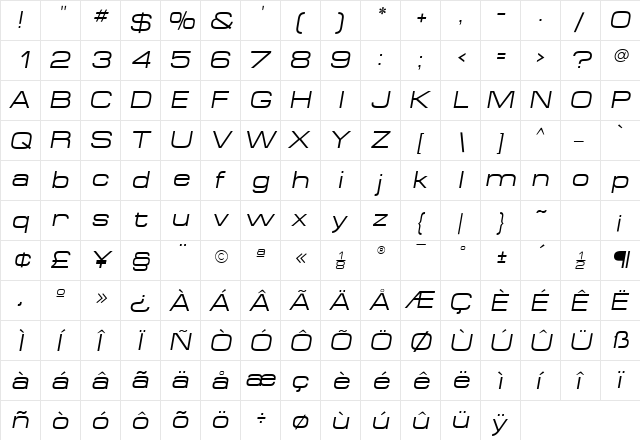
Minima Expanded SSi Expanded Italic
Design Context for Minima Expanded SSi Typeface
Minima Expanded SSi takes a measured approach to typography — its balanced proportions and neutral character make it a reliable workhorse for both digital and print work. Its italic angle brings a sense of urgency and motion to the letterforms.
Pro Tip: Use Minima Expanded SSi for emphasis, pull quotes, and subheadings where its slanted energy can add rhythm to the layout.